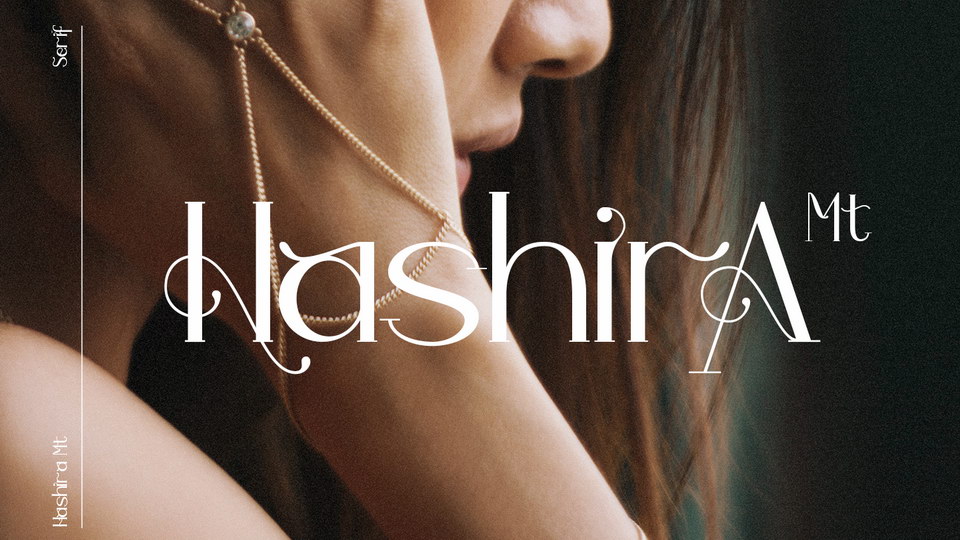
Feb 8, 2025SerifHashira Mt Font Hashira Mt is a modern serif font defined by smooth curves and is perfect for fashion branding or editorial designs. Use this font for your designs and explore its endless possibilities. Font DetailsDesigned by: Motion Tail.stdWebsiteLicense: Free for commercial use Download Hashira Mt FontFile size: 70.00 KBCreated: February 16, 2025Updated: February 16, 2025 Download Explore similar fonts Connect Markets Font Prestige Record Font Greatest Realities Font Massive Challenge Font Resilient Shifting Font Resilient Essence Font # Decorative# Elegant# Fancy# Fashion# Modern More fonts by Motion Tail.stdMariyam FontEthikopia Font